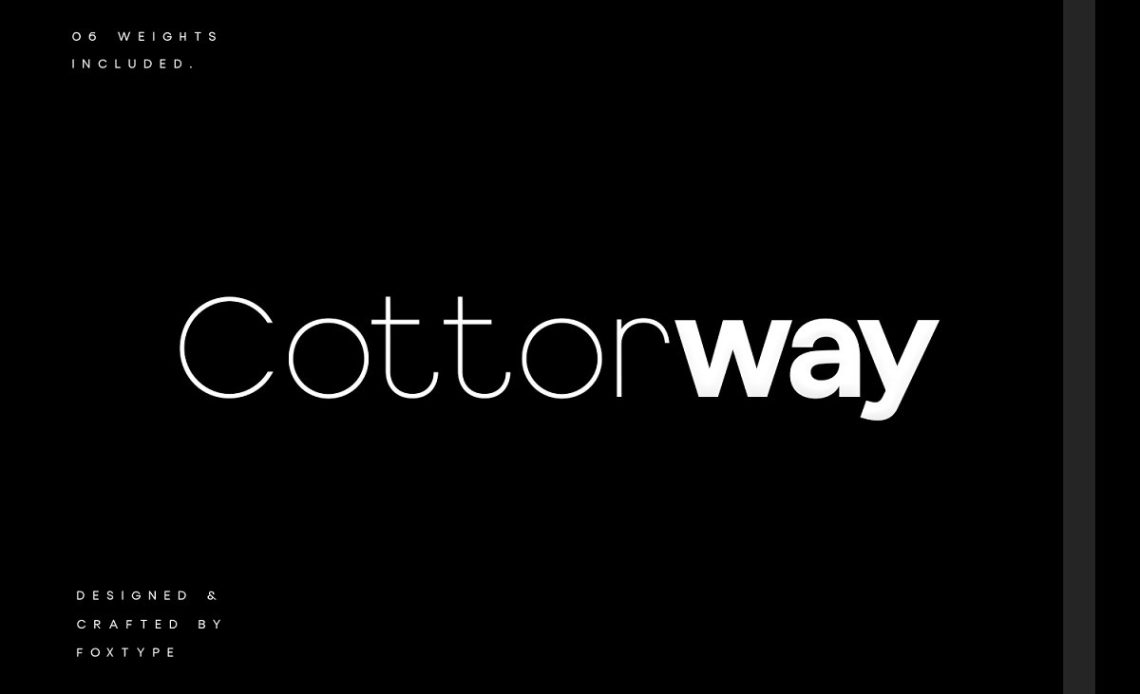
Looking for a typeface that will help elevate your brand to new heights? Look no further than Cottorway Display Typeface, the latest creation from FoxType Co.
With its sleek sans serif style and powerful font family, Cottorway Display is the perfect choice for anyone looking to make a statement with their branding. Its dependable and uncompromising style features controlled letterforms and modern touches that are sure to impress.
But Cottorway Display is more than just a pretty face. Its versatility and range of weights make it a great choice for a variety of applications, including logos, magazines, posters, and more. And with six weights to choose from, you'll have plenty of options to experiment with.
But what really sets Cottorway Display apart is its attention to detail. With expert kerning and quality crafting, every letter is perfectly positioned for maximum impact. And with TTF, OTF, and webfonts included, you can easily use Cottorway Display on all of your digital and print projects.
So whether you're looking to create captivating headlines, engaging captions, or stylish paragraphs, Cottorway Display Typeface is the perfect choice. With its clean, minimalist design and warm, quirky personality, it's sure to make a lasting impression on anyone who sees it.